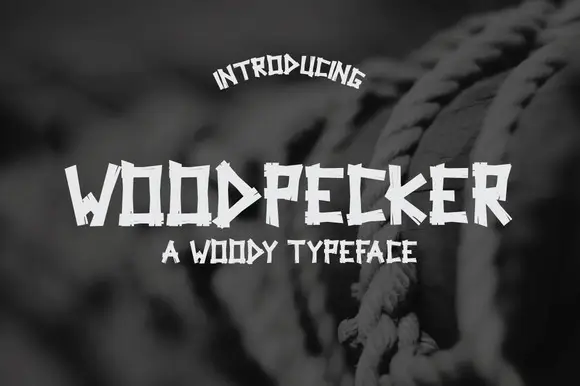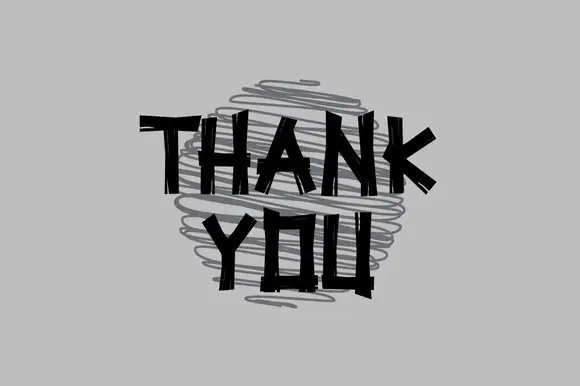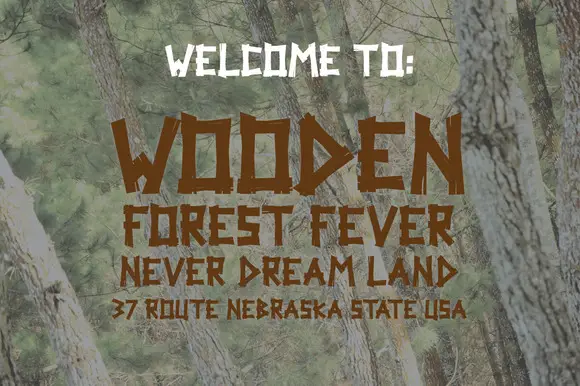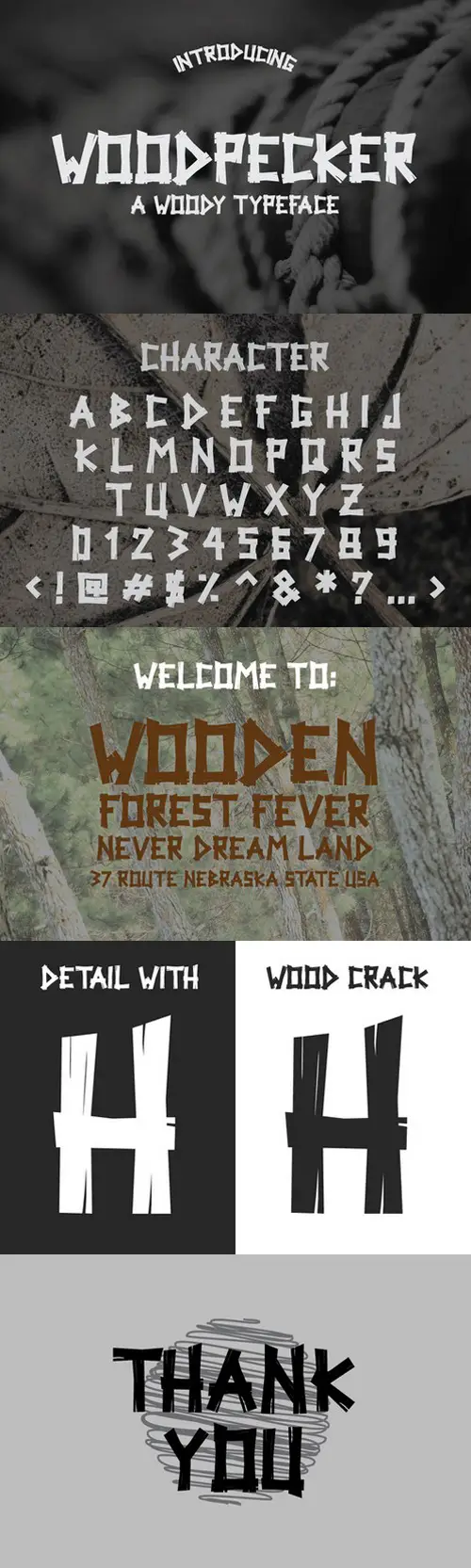
Woodpecker Typeface
The Woodpecker Typeface is a unique display font that brings a touch of nature-inspired design to your projects. With its organic shapes and playful strokes, this font is perfect for creating eye-catching headlines, logos, and branding materials.
• Stylish and distinctive letterforms
• Uppercase and lowercase characters
This font is ideal for branding, logos, packaging, and print materials. Its whimsical style makes it suitable for projects that require a creative and friendly touch.